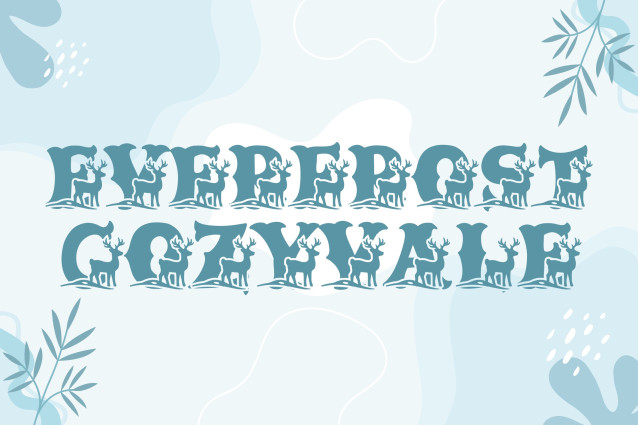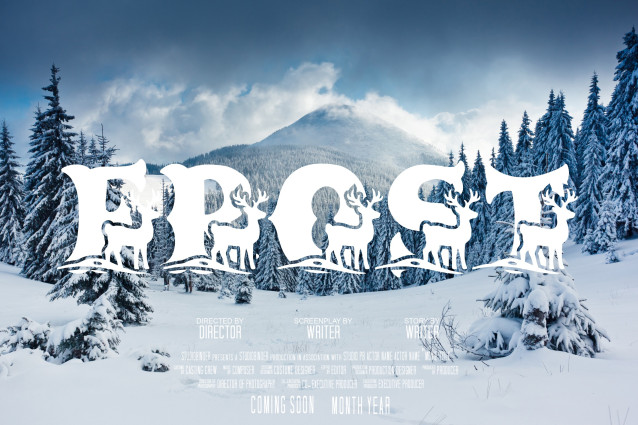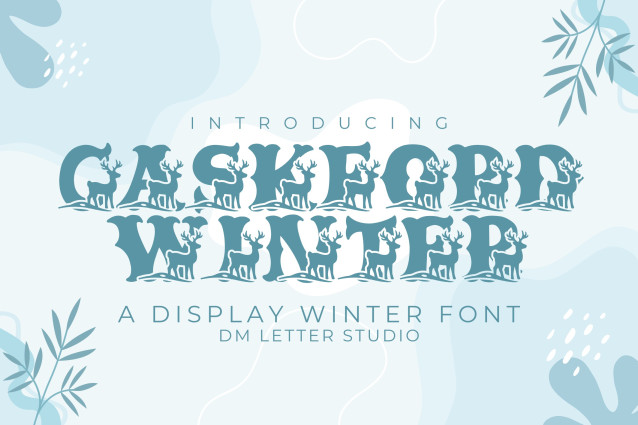
Caskford Winter Font
Caskford Winter Font takes the bold old western roots of Caskford and blends them with a cozy winter mood. It keeps the rugged, vintage structure while softening the feel to suit seasonal designs. The letterforms stay strong and readable, so they work beautifully from small labels to large headlines. Use it for winter branding, holiday packaging, posters, mugs, apparel, rustic signs, and seasonal merch. As a result, your designs feel warm, nostalgic, and winter-ready without losing character.
Fast layouts with the Caskford Winter Font
Start with short, bold words and let the font carry the mood. After that, add supporting text in a clean serif or sans font. Because Caskford Winter has strong presence, it works well in badges, arches, and stacked layouts. In addition, it shines on rustic frames, winter labels, and vintage sign styles. Finally, try color pairs like pine & cream, charcoal & snow, cranberry & ivory, or navy & frost to lock in the winter feel.